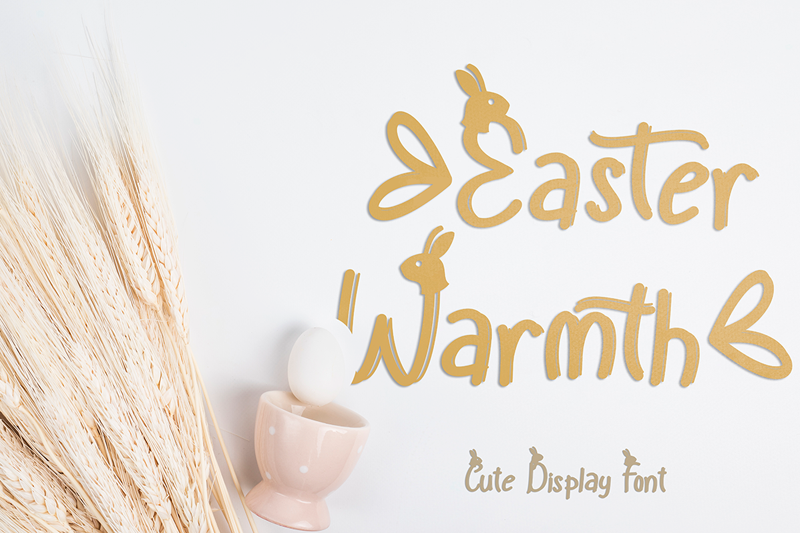
This font is called "Easter Warmth". This font is so easy to use that it can easily embellish the letters. This font is very unique and cute, making it perfect for celebrating your Easter day. Not only for Easter, but this font can also be used for other purposes, such as for creating logos for books, comics, movie titles, animation, promotions, and others. By installing or using this font, you are agreeing to the Product Usage Agreement: This font is only for personal use. For Commercial use click: https://www.creativefabrica.com/product/easter-warmth/ref/377214/ https://www.creativefabrica.com/designer/yogaletter6/ref/377214 Please contact us before using for any Promotional or Commercial Use! (Email: yogaletter6@gmail.com) Follow our social media for update more great fonts and informations : Instagram: @isroniyogaprasetya Facebook: isroni yoga prasetya Please, let me know if you have any questions! :) Thank you :) |